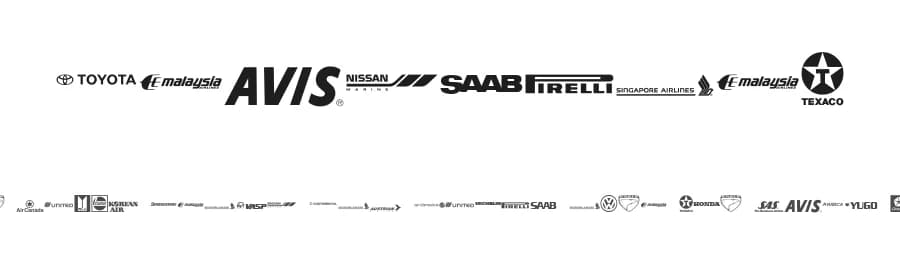
About Transport Font
Transport is a dingbat font designed by Magnum Software. It includes 97 glyphs, TTF (TrueType) format, and 104 languages. Transport is free to download; check the license details on this page before commercial use. Dingbat fonts like Transport work best for icons, ornaments, bullet points, and decorative accents.
Transport Font is a versatile dingbats font that works for both headings and body text. Pair it with a contrasting sans-serif or serif font to add visual interest and a clear distinction between titles and body copy.
Transport Font
Transport Font is a dingbats typeface by Magnum Software, ideal for logos, invitations, branding, and creative projects.